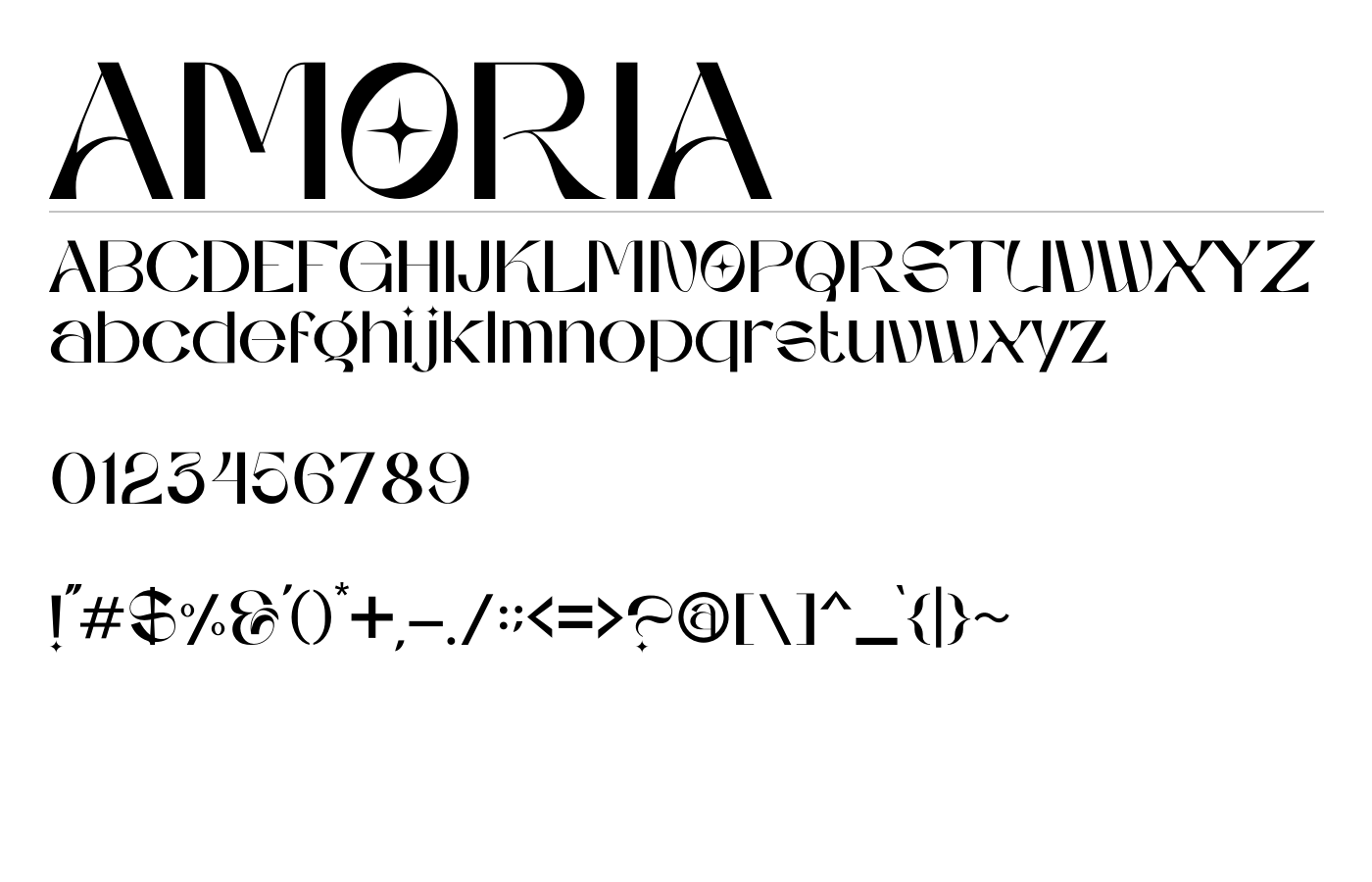
Amoria is a stylish serif font with a modern, high-contrast design that features elegant thin and thick strokes along with unique geometric and decorative details, like the star-shaped element inside the "O." Its refined letterforms and sophisticated flair make it perfect for luxury branding, fashion, editorial headlines, and high-end packaging, where a touch of elegance and visual impact is desired.
AMORIA Font